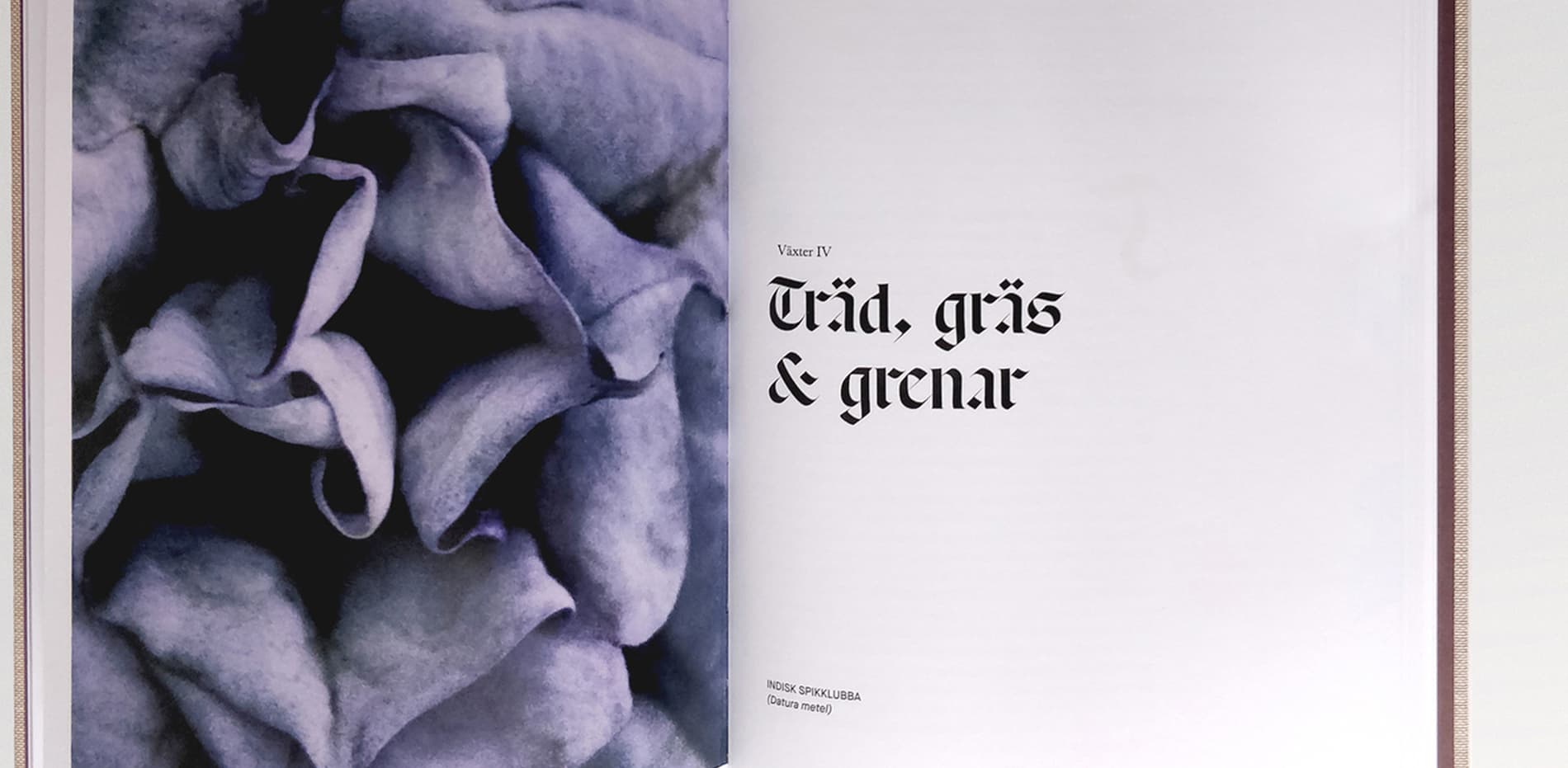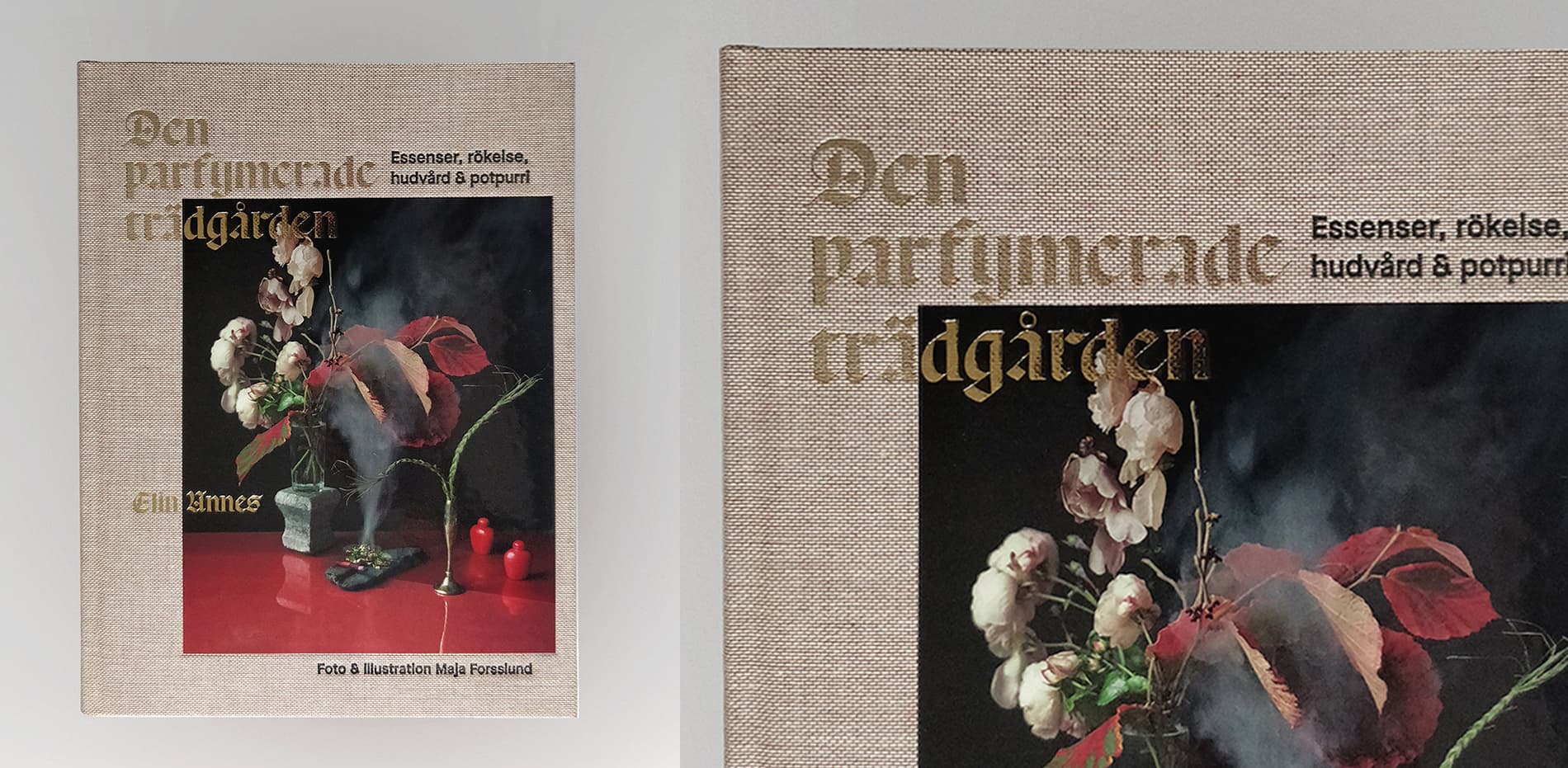
Respira
Respira is a contemporary blackletter with all the requisite flair and drama condensed into clean, minimal strokes. Its design was primarily inspired by a style of Spanish blackletter often found in illuminated manuscripts of Andalusia. Lucas Sharp first came across this unique style in the breathtaking Santa Iglesia Catedral Metropolitana de la Encarnación in Granada. It was love at first sight.
Designers: Lucas Sharp & Wei Huang | Engineer: Calvin Kwok | Kerning: Igino Marini